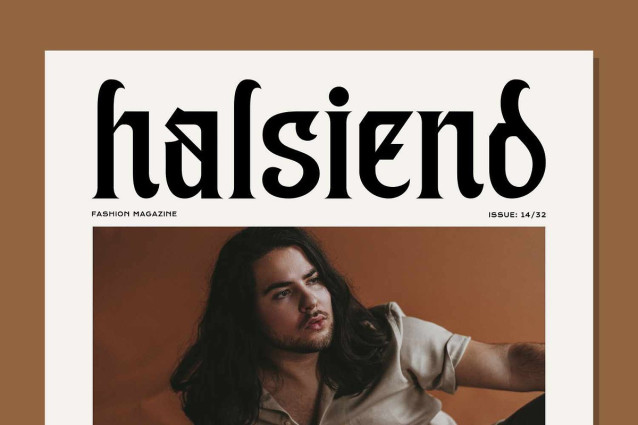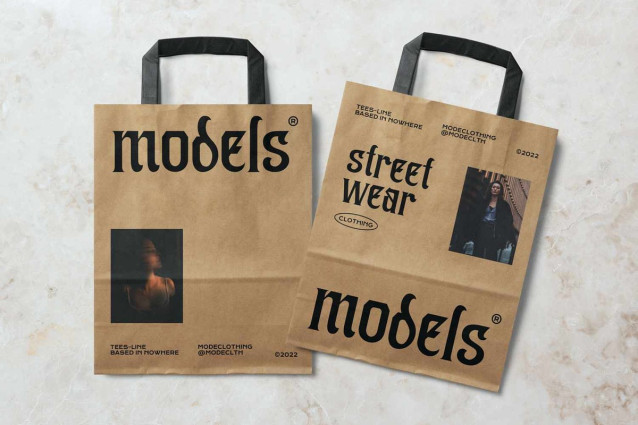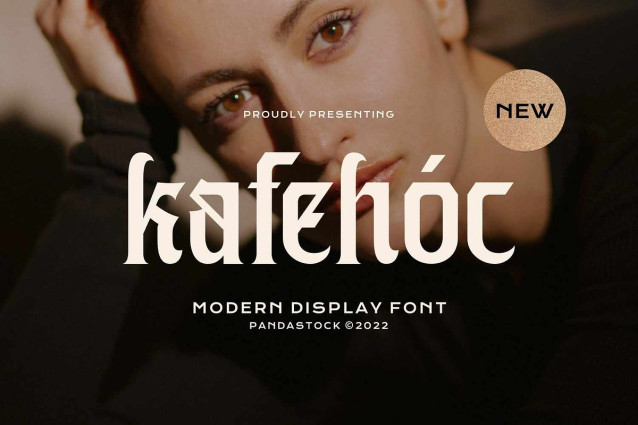
Kafehoc Font
Kafehoc Font is a modern blackletter display font that blends medievalism and modernism. Ideal for high end fashion branding, bold magazine titles, coffee packaging, and any project that demands an elegant touch with a touch of drama.